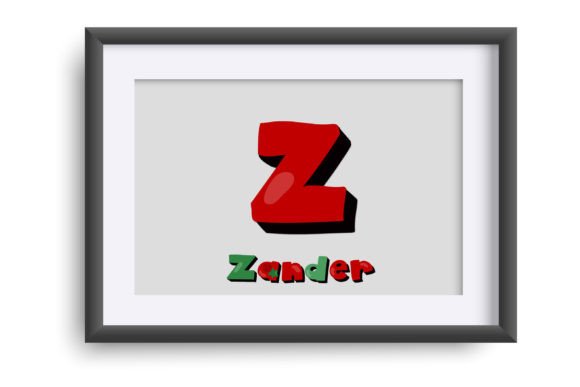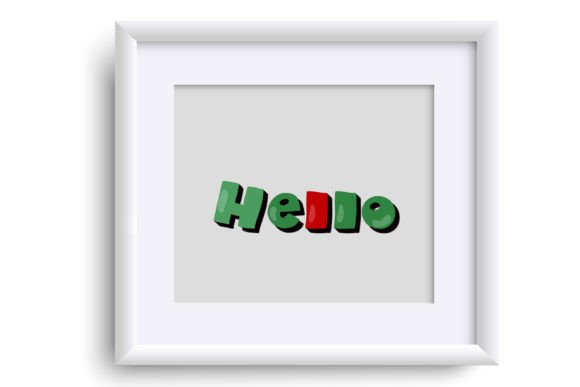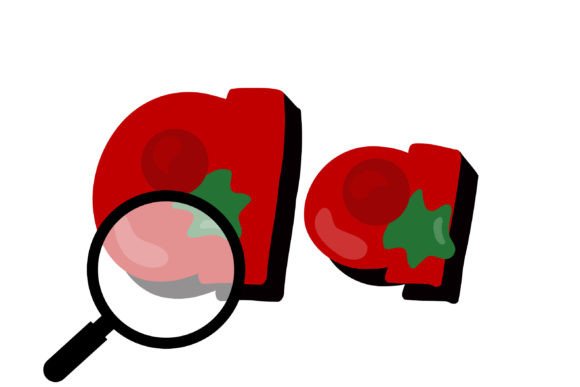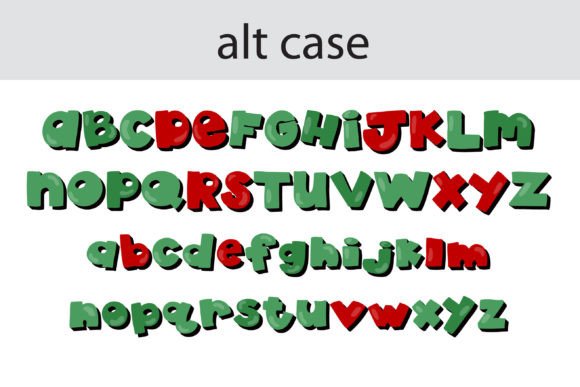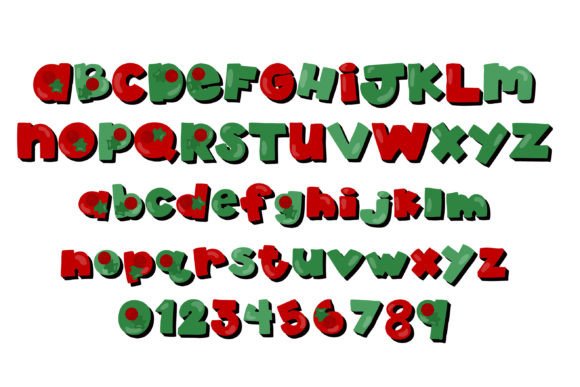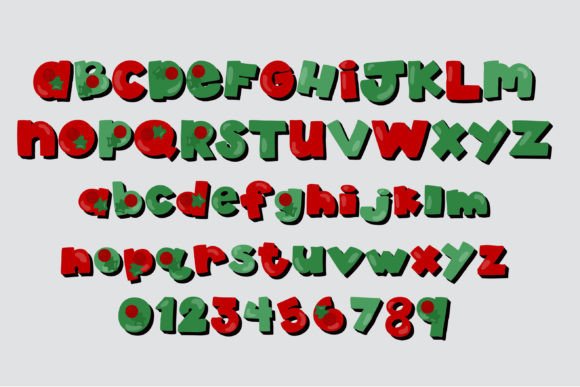
Introduction to Joyful Giggles Font
This full-color font features a whimsical, sans serif-style font in a Christmas color palette with heavy 3d shadow.
There is an alt case w/ additional colors you can access through your system or Silhouetteโs glyph map OpenType full-color (SVG) fonts are installed like any normal .